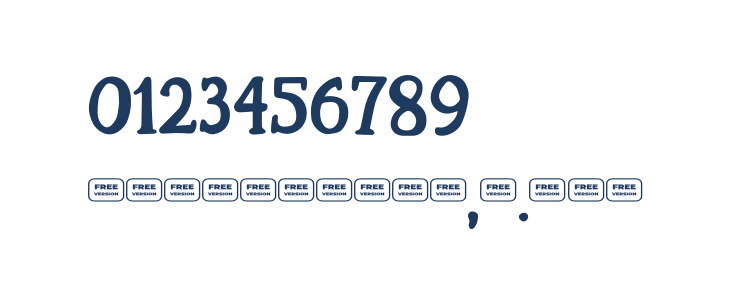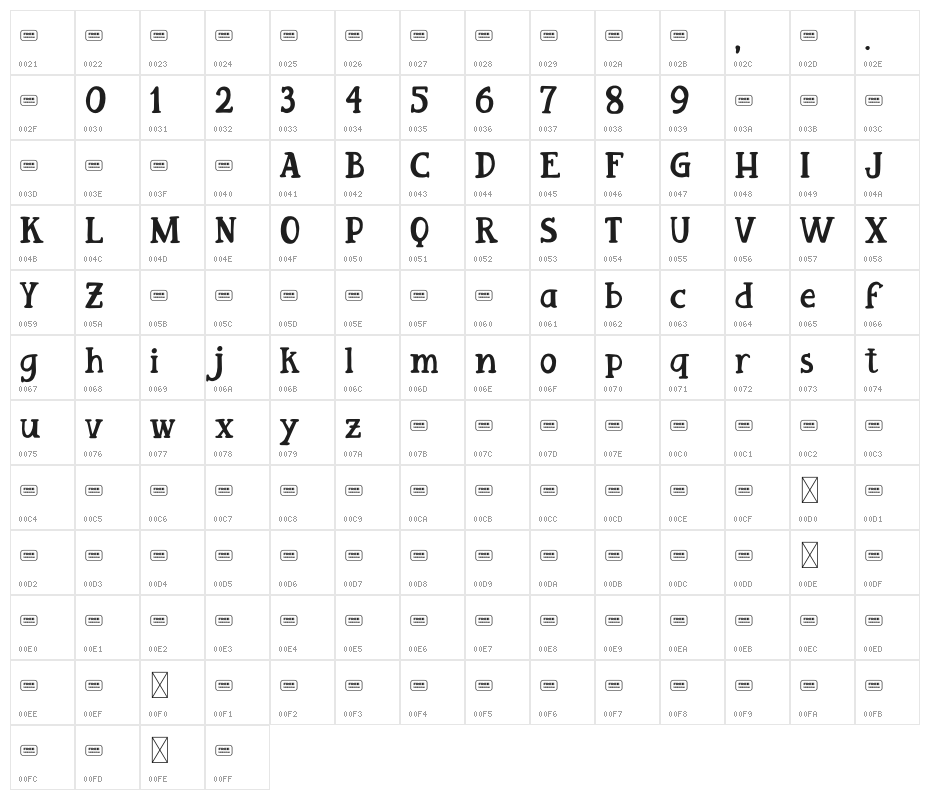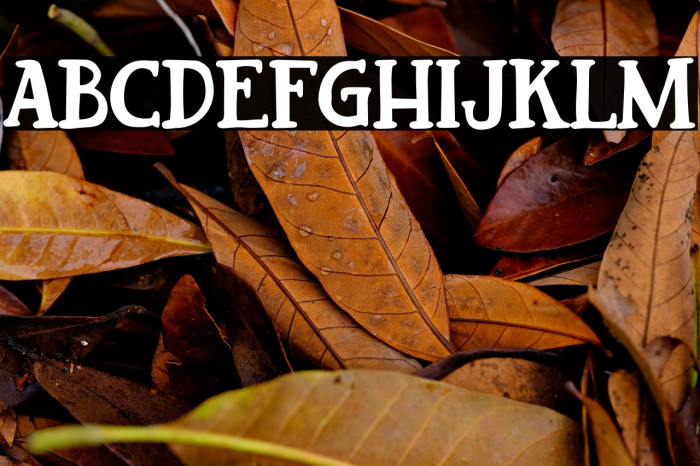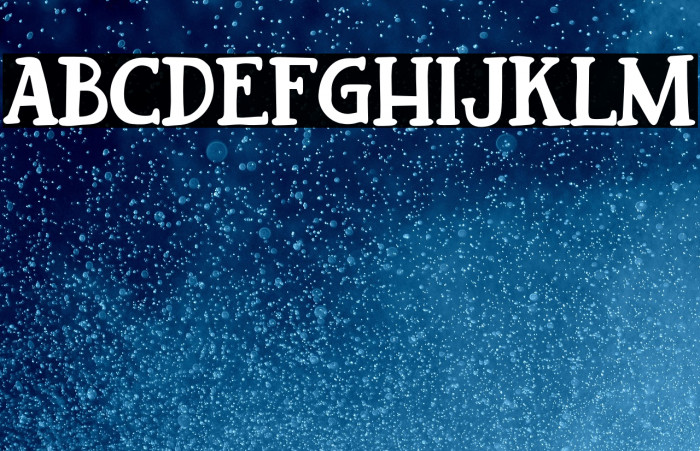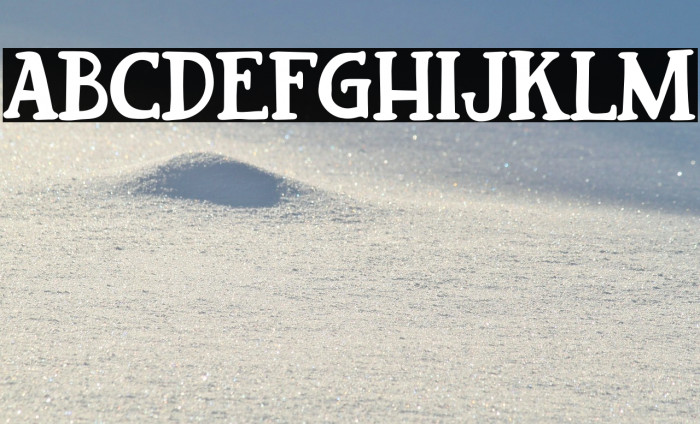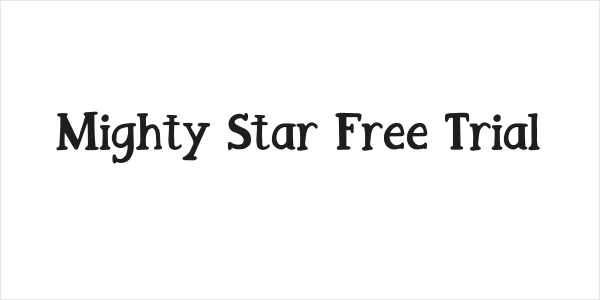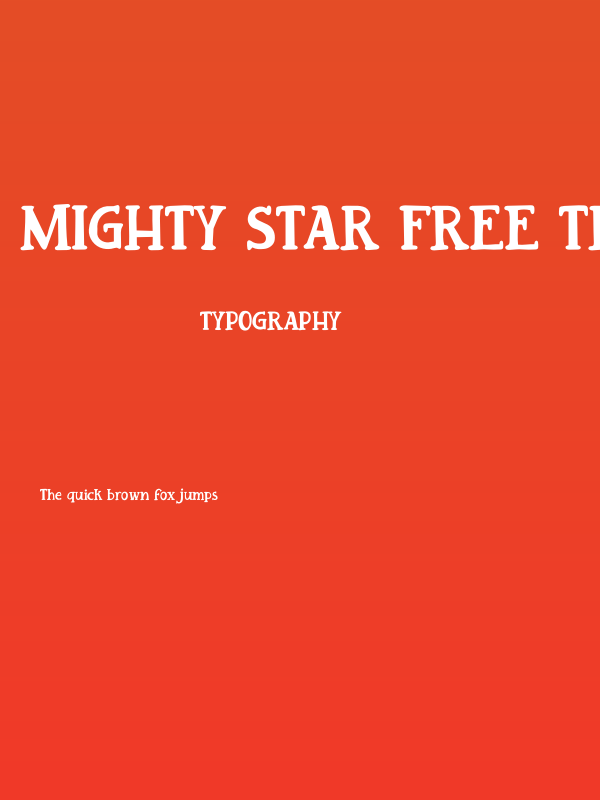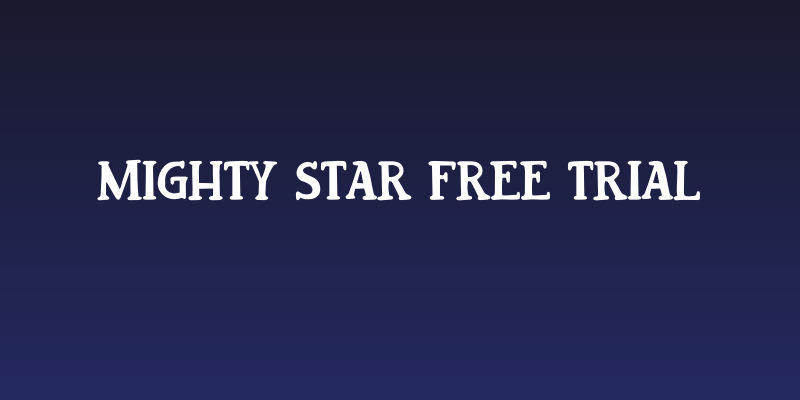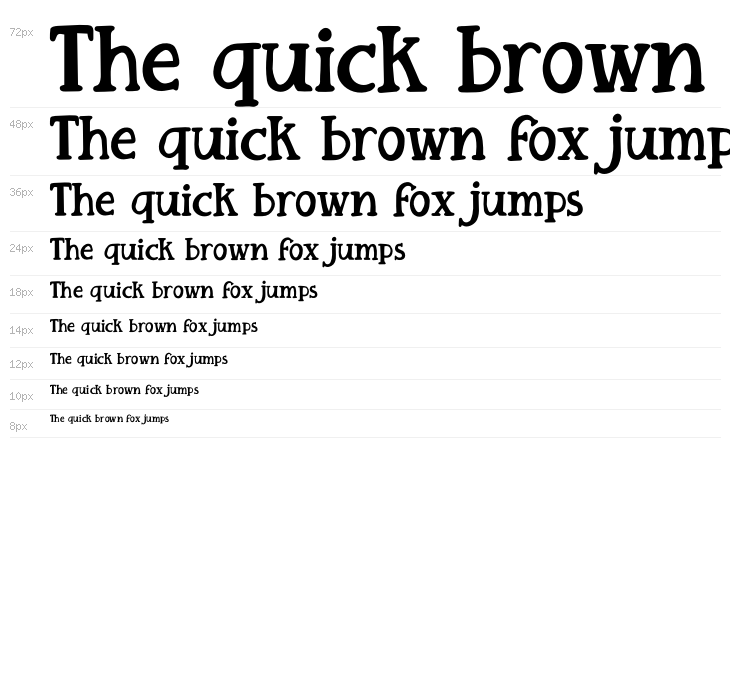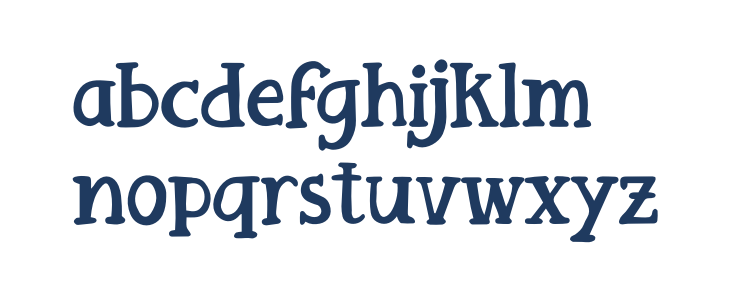
Mighty Star Free Trial Font
Mighty Star Free Trial Description
This font features a playful and bold design with a whimsical touch. The characters have a slightly uneven baseline, giving them a hand-drawn appearance. The strokes are thick and rounded, adding to the font's friendly and approachable feel. The uppercase letters are robust and commanding, while the lowercase letters maintain a consistent style with slightly exaggerated curves. The numbers are clear and bold, ensuring readability. This font includes a variety of special characters, enhancing its versatility for different design needs.
| Proposed Projects | Ideal for children's books, playful branding, posters, and creative projects that require a friendly and approachable typeface. |